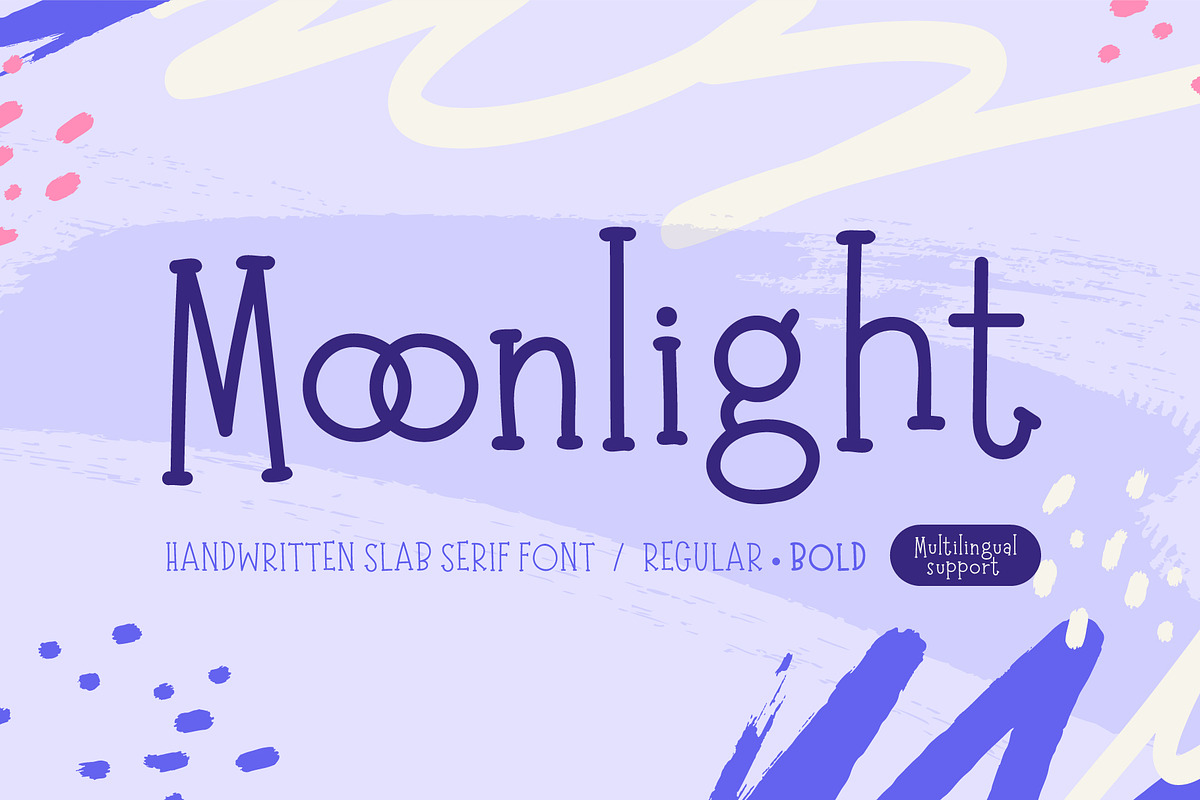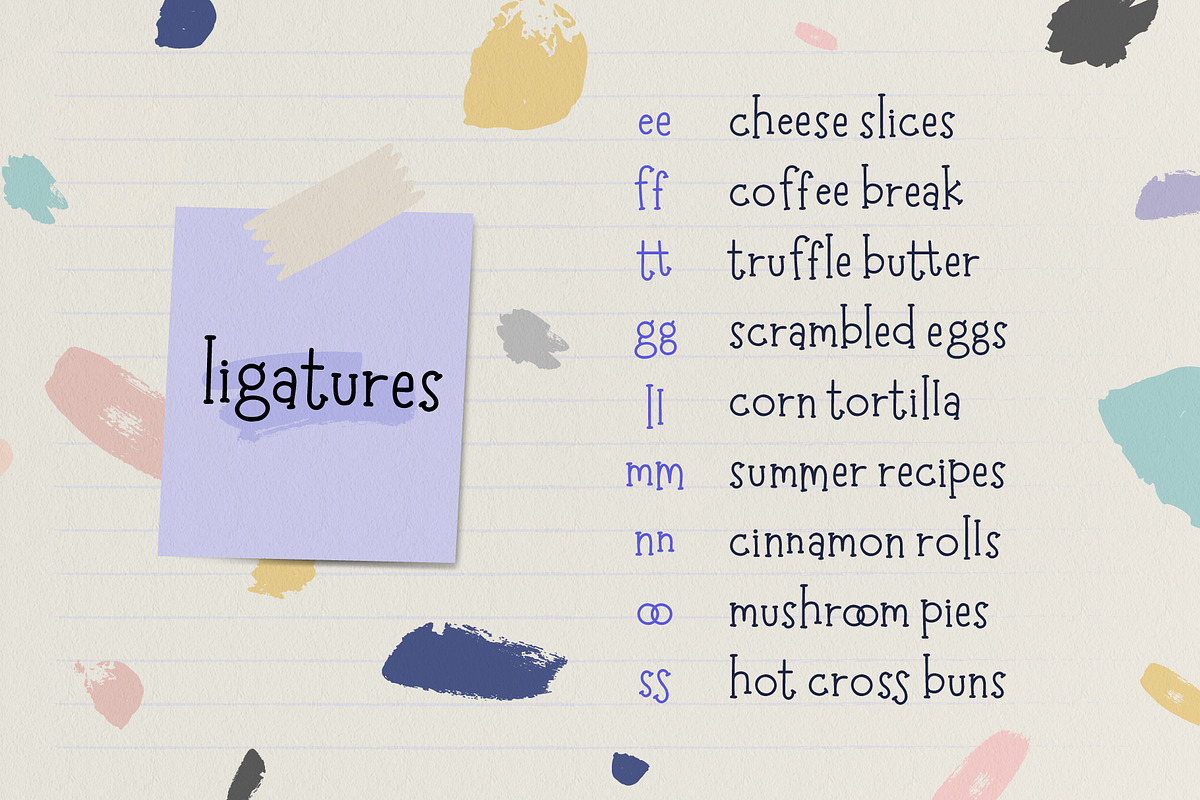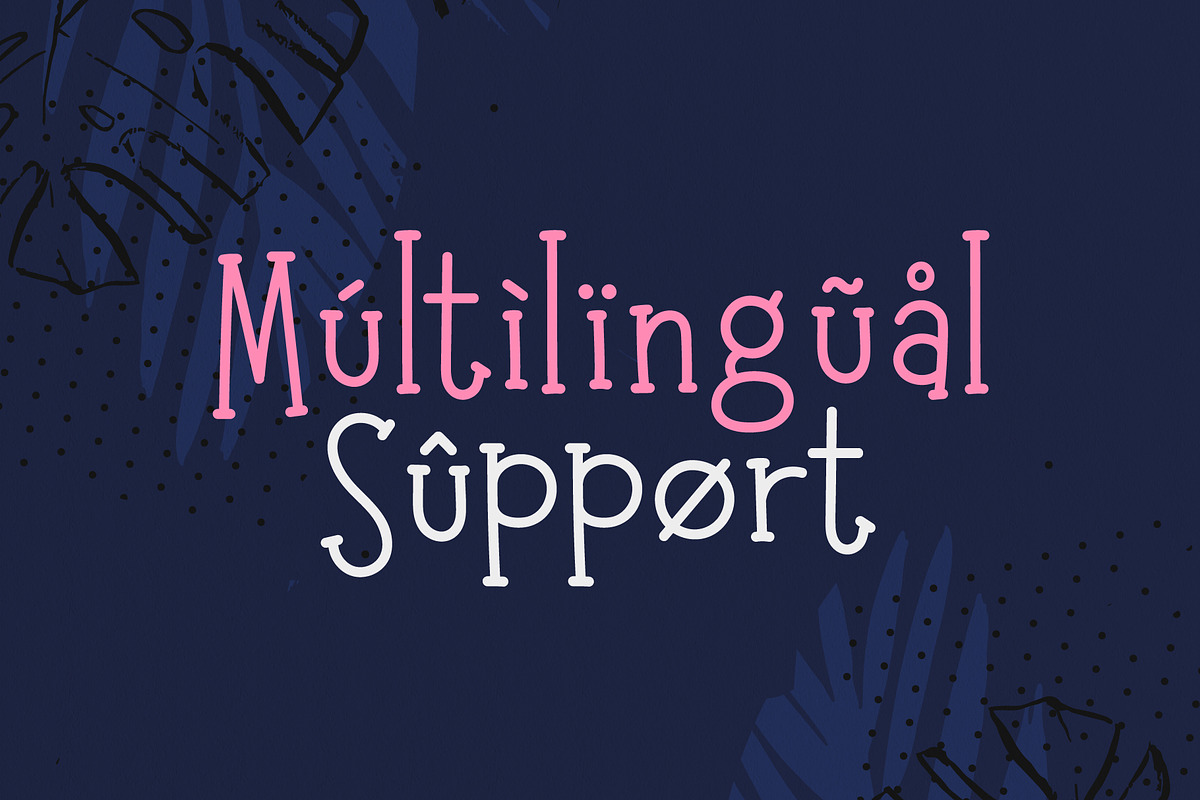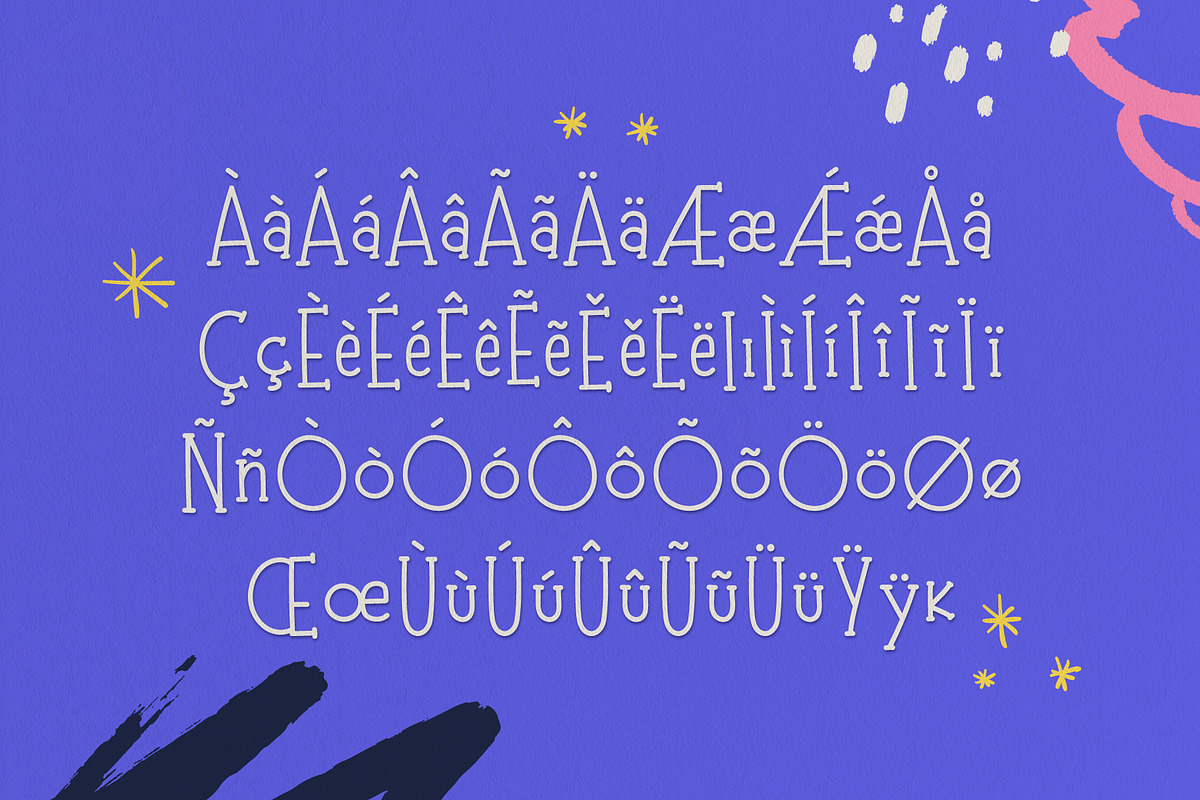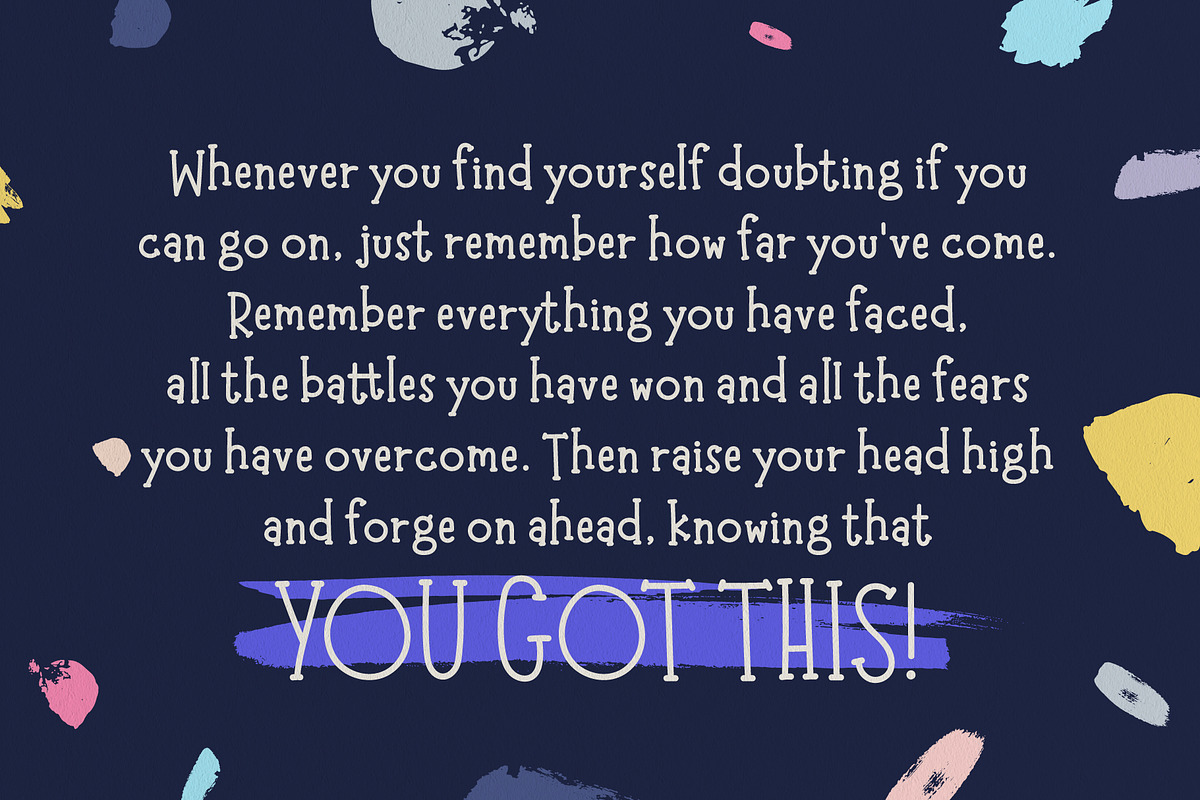
Moonlight Slab Serif Font
Moonlight is a modern handwritten slab serif font that comes in 2 font weights - Regular & Bold. This bouncy, adorable font is perfect for cutting, t-shirts, party invites, storybook, merchandise, and much more. There's a set of standard ligatures included to create an authentic handwritten look too!
★ UPDATE ★ Multilingual support!
Moonlight now supports Danish, French, Italian, Norwegian, Portuguese, Spanish, Swedish, Swahili & more!
- There's a set of standard ligatures included to create an authentic handwritten look too!
- ★ UPDATE ★ Multilingual support!